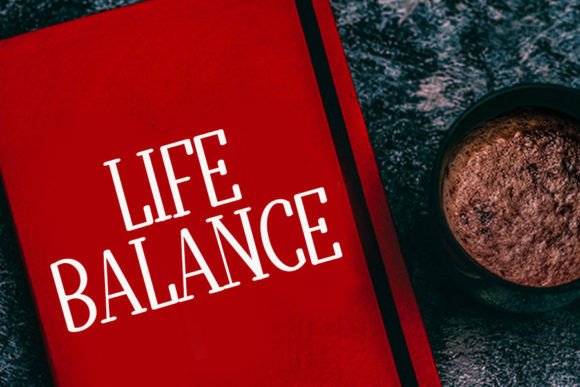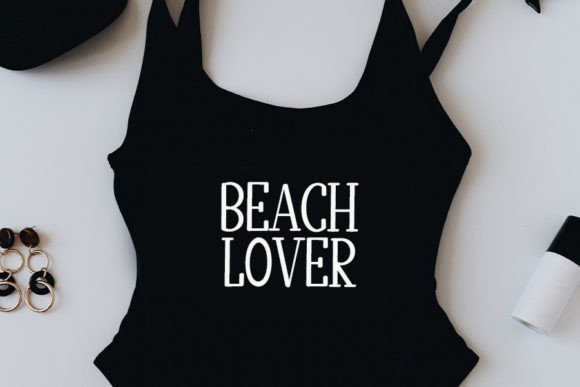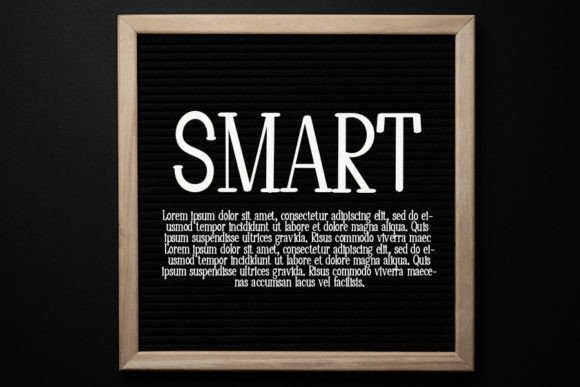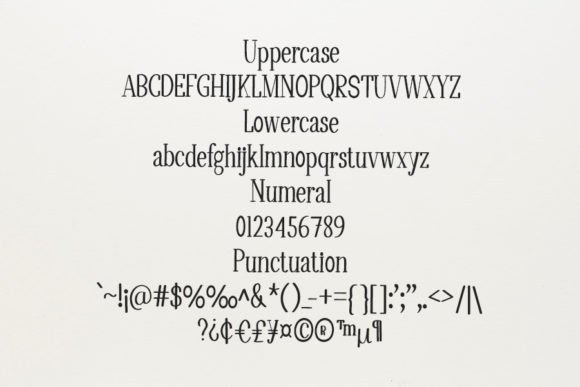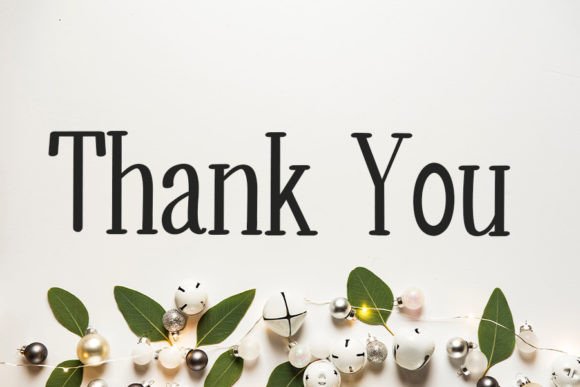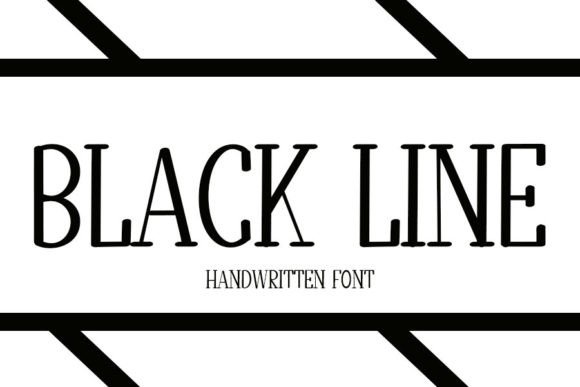
Introducing Black Line Font: Elevate Your Designs with Modern Elegance
In the world of typography, fonts play a crucial role in conveying the message and aesthetic of a design. For designers and crafters seeking a modern yet classic look, Black Line Font is an excellent choice. This cool slab serif font boasts a spotless form, inspired by traditional calligraphy, making it perfect for enhancing the beauty of your projects.
The Inspiration Behind Black Line Font
Black Line Font draws its inspiration from classic calligraphy, a timeless art form that has been a cornerstone of elegant writing for centuries. The font’s creators aimed to capture the essence of calligraphic lines, balancing modernity with tradition. The result is a font that is not too thin and not too thick, but rather, perfectly balanced and varied, suitable for a wide range of design applications.
Key Features of Black Line Font
- Modern Vibe: Black Line Font offers a contemporary look that will make your designs stand out in any medium.
- Balanced and Varied: With its well-proportioned strokes, this font ensures that your text remains legible and aesthetically pleasing.
- Spotless Form: The clean and crisp appearance of Black Line Font makes it ideal for both digital and print designs.
- Slab Serif Style: The slab serif design adds a touch of sophistication and elegance, making it suitable for high-end projects.
Applications of Black Line Font
Black Line Font’s versatility makes it an excellent choice for various design projects, including:
- Branding and Logo Design: Create memorable and impactful logos with the font’s distinctive style.
- Advertising and Marketing Materials: Use Black Line Font to add a professional and modern touch to your ads, brochures, and flyers.
- Packaging Design: Enhance your product packaging with a font that communicates quality and sophistication.
- Digital Media: Black Line Font is perfect for website headers, social media graphics, and any digital content that requires a stylish and readable font.
Why Choose Black Line Font?
In a sea of fonts, Black Line Font stands out for several reasons:
- Unique yet Legible: It offers a unique style without compromising on readability.
- Versatility: Suitable for a wide range of projects, from elegant editorial designs to impactful advertising.
- Modern Appeal: The font’s modern vibe ensures your designs feel current and engaging.
Tips for Using Black Line Font Effectively
To maximize the impact of Black Line Font in your designs:
- Pair it with Complementary Fonts: Use Black Line Font as a headline font and pair it with a simpler font for body text to create visual hierarchy.
- Experiment with Colors: While the font itself is black, don’t be afraid to experiment with different colors to match your brand’s palette.
- Adjust Line Spacing: Ensure adequate line spacing to enhance readability, especially in longer texts.
Black Line Font is a powerful tool for designers and crafters looking to add a touch of modern elegance to their projects. Its balanced and varied style, inspired by classic calligraphy, makes it a versatile choice for a myriad of design applications. Whether you’re working on branding, advertising, packaging, or digital media, Black Line Font is sure to elevate the beauty and impact of your designs.
Discover the potential of Black Line Font and take your designs to the next level with its unique blend of modernity and classic sophistication.